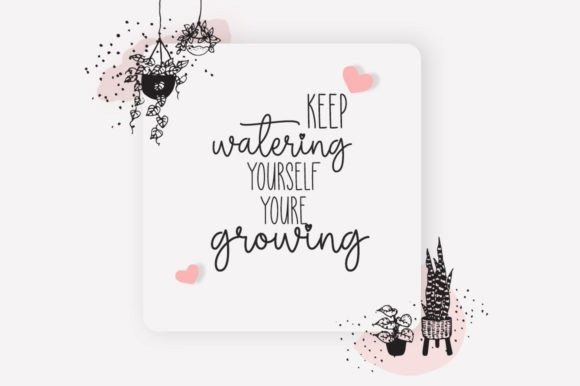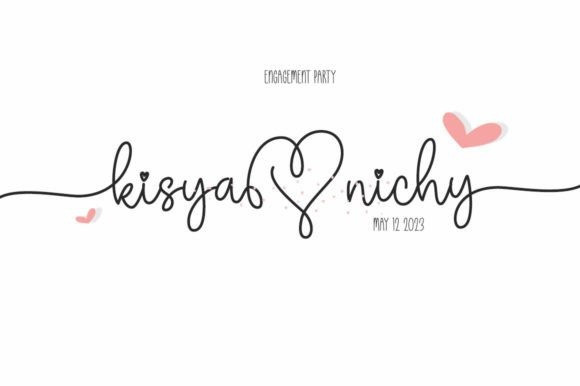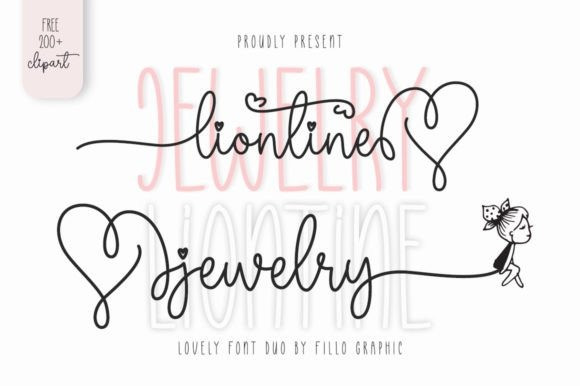
Liontine Handwriting Font
Liontine Handwriting Font consists of two handwritten fonts (script and display) designed to complement each other perfectly. Together or apart, these fonts are ideal for adding a chic and cheery touch to your crafts. Liontine jewelry is PUA encoded which means you can access all glyphs and ligatures with ease!